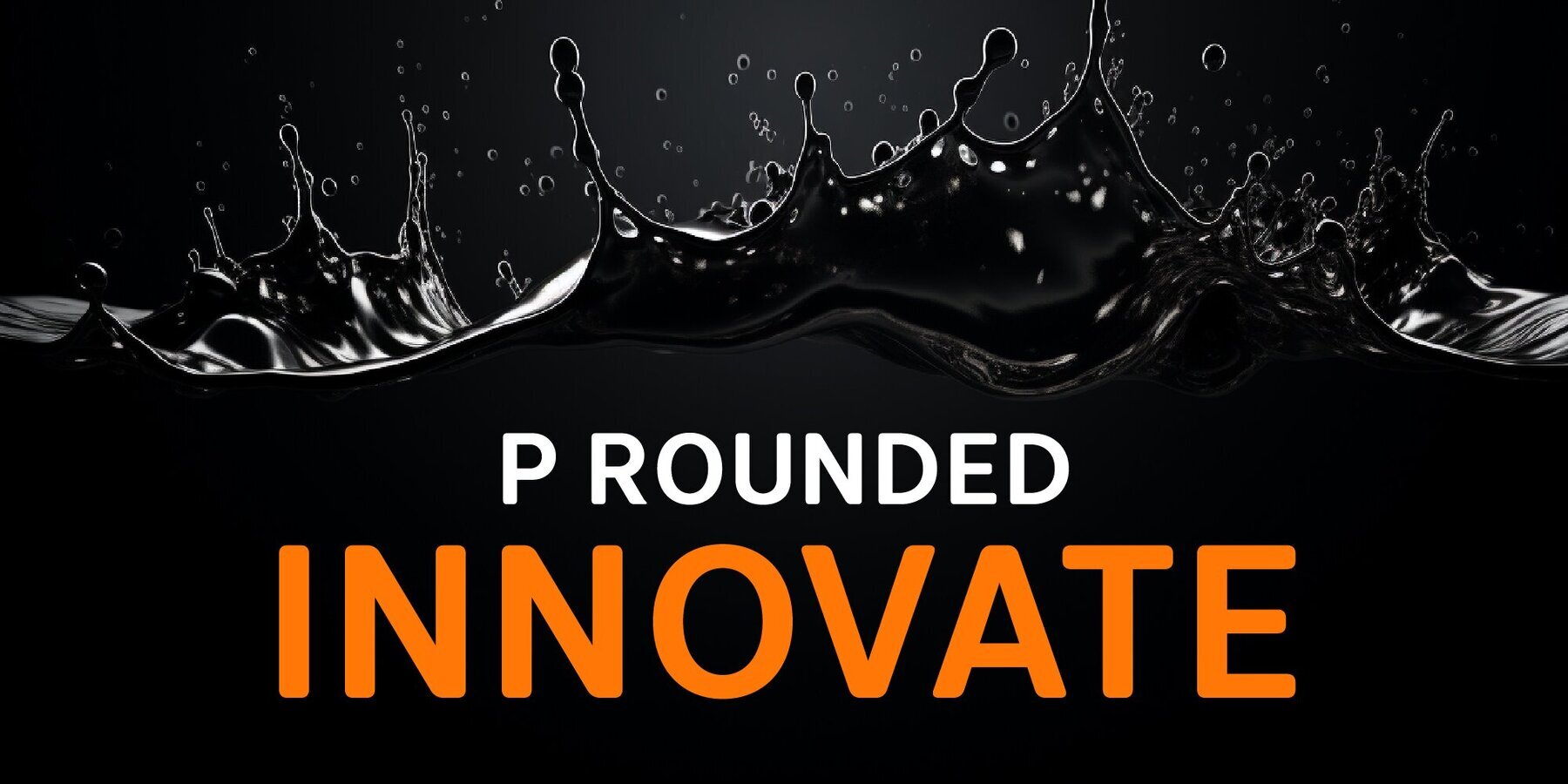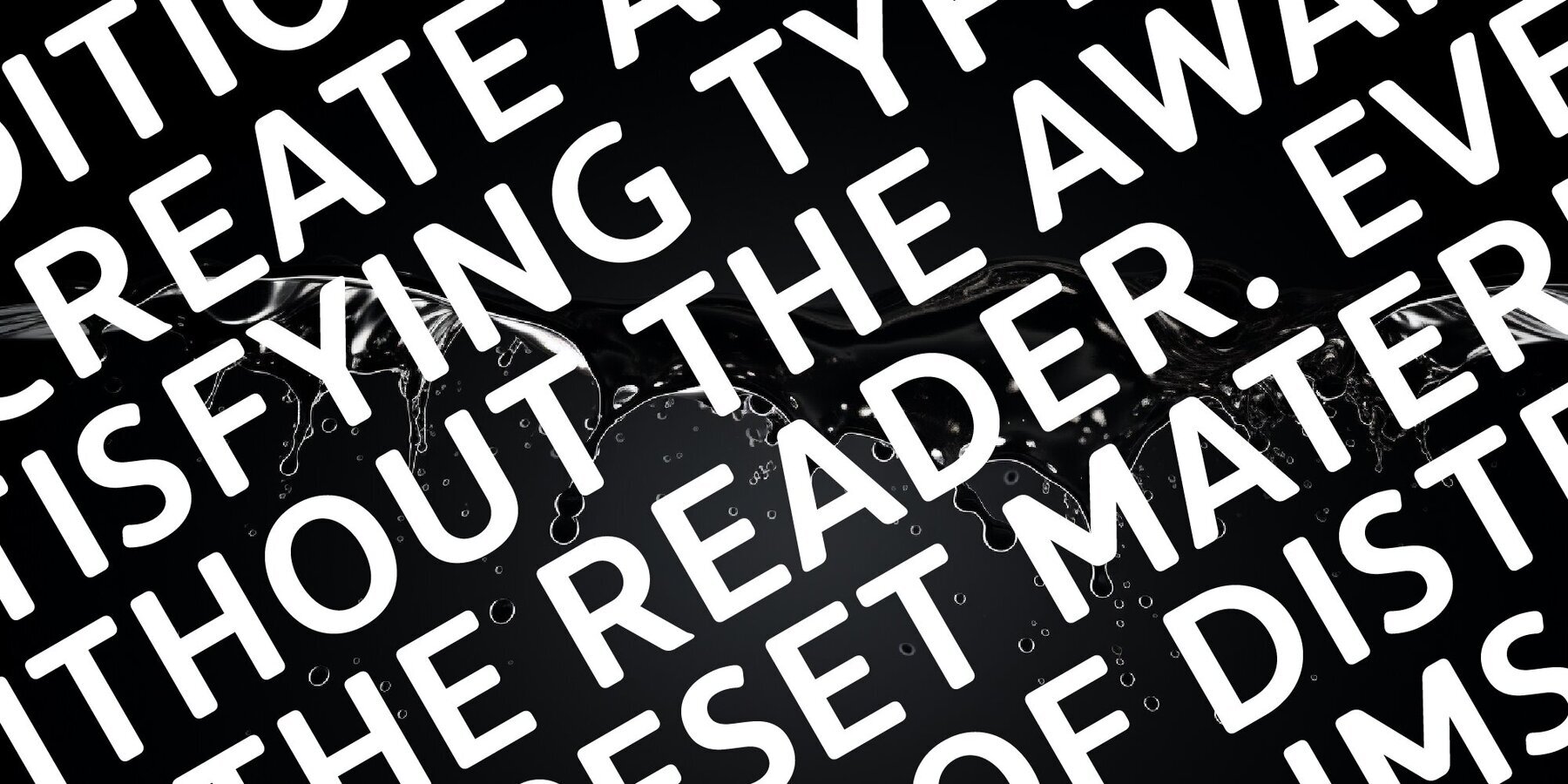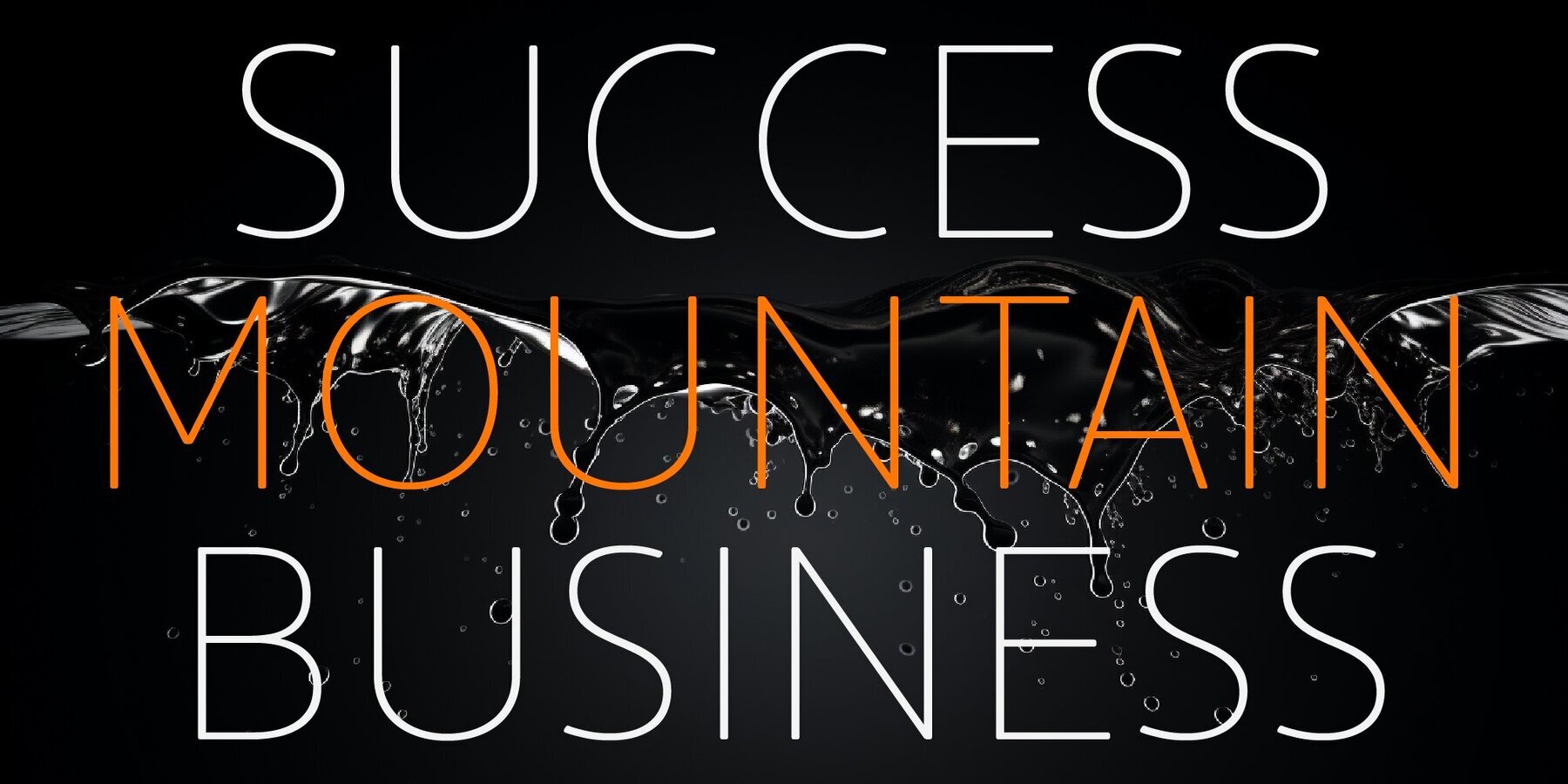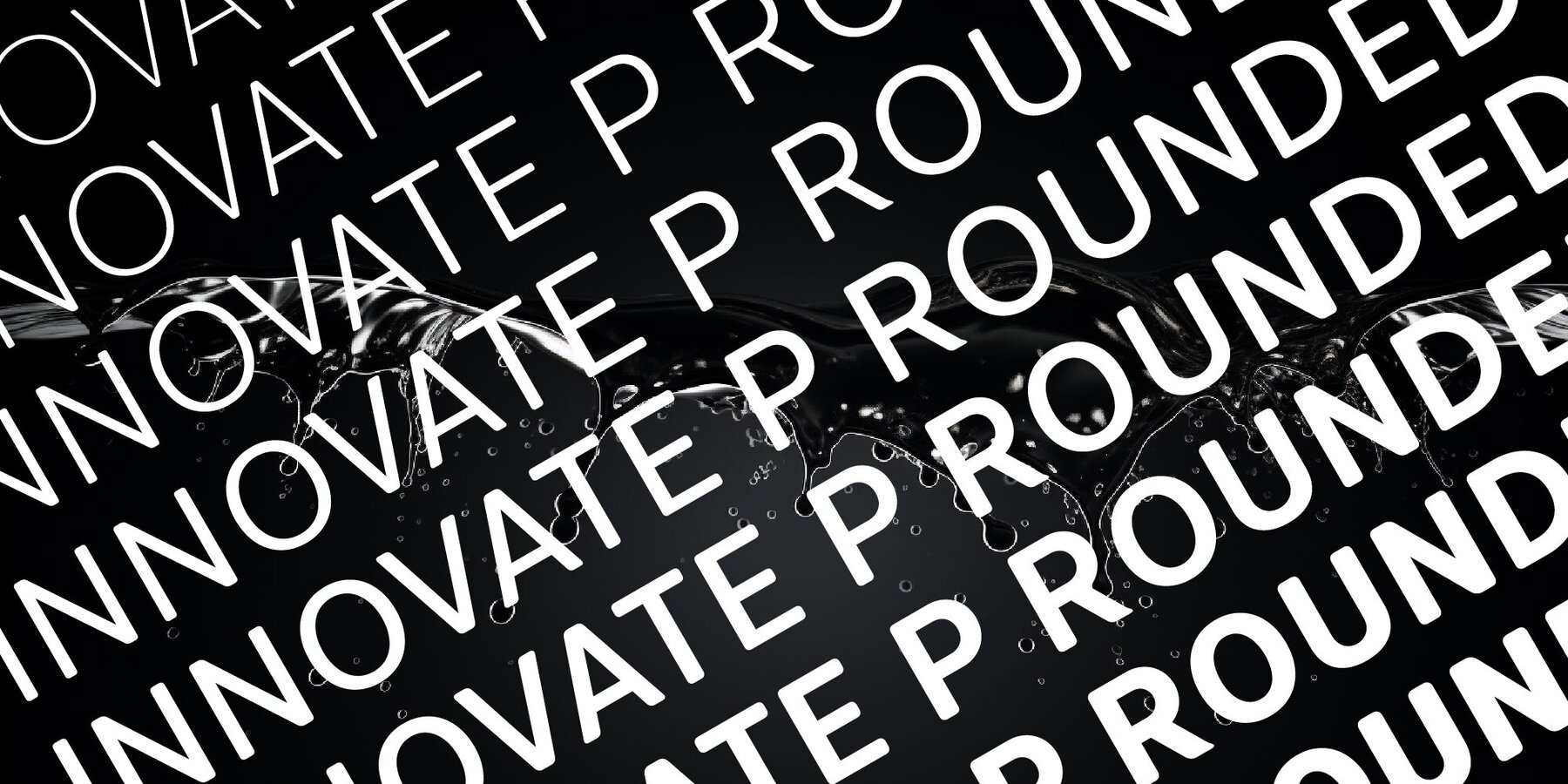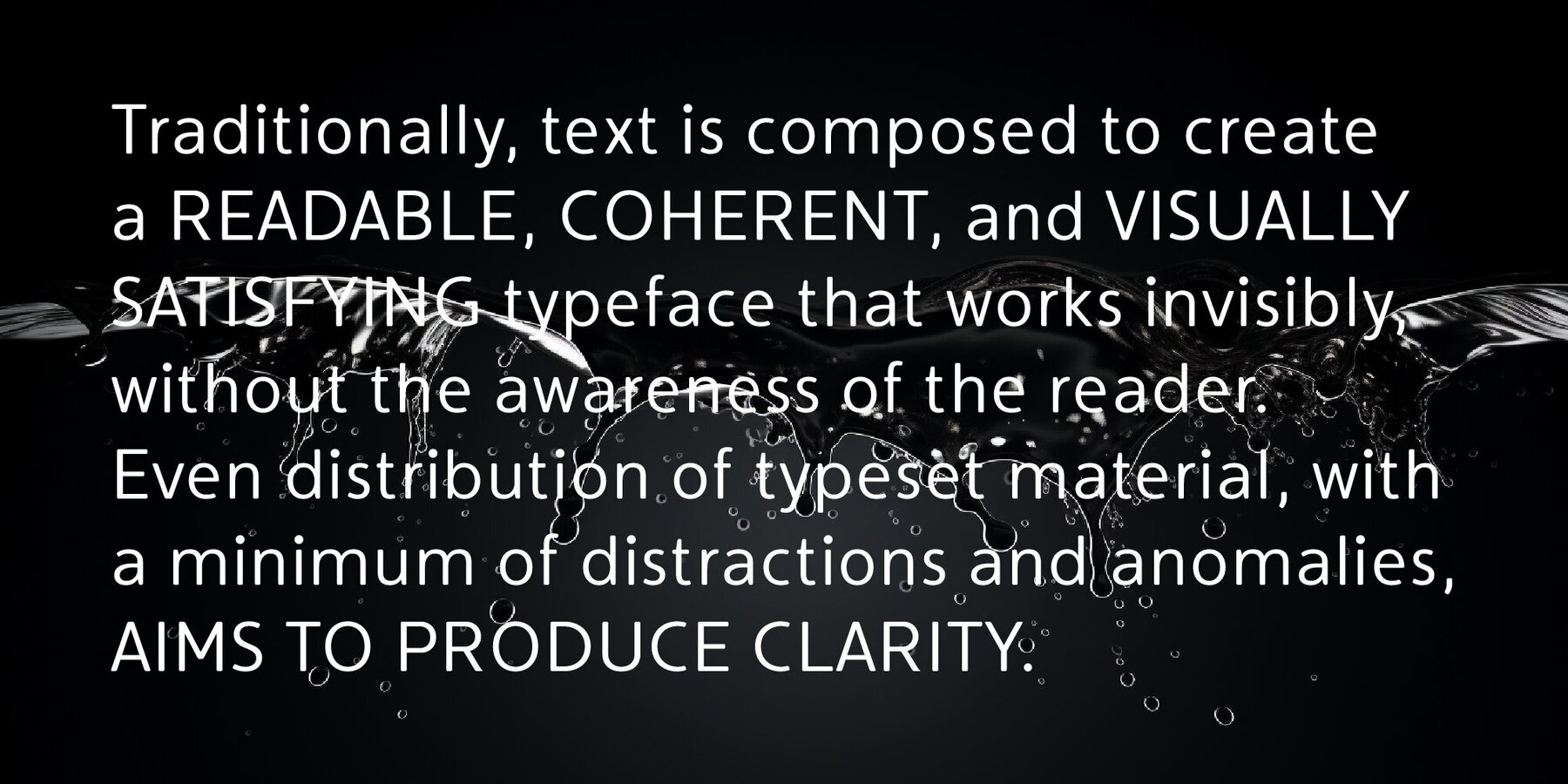
Innovate P Rounded Font
Innovate P Rounded was designed by Nikolay Savchuk. Innovate is a modern versatile sans-serif typeface based on Innovate font family. What differentiates Innovate from the other fonts is an exceptionally distinctive design. It is brilliantly suited for graphic design and display use and perfect for logotypes, t-shirts, packaging, brand identity, books, magazines, newspapers, posters, billboards, and advertising.
Savchuk Mykola began his career as a graphic designer. Over time, he had a desire to create a font that would reflect his view of typography. ‘They say that all ingenious things are simple, although unique. In my future projects, I want to reflect simplicity on the one hand and uniqueness on the other, providi...